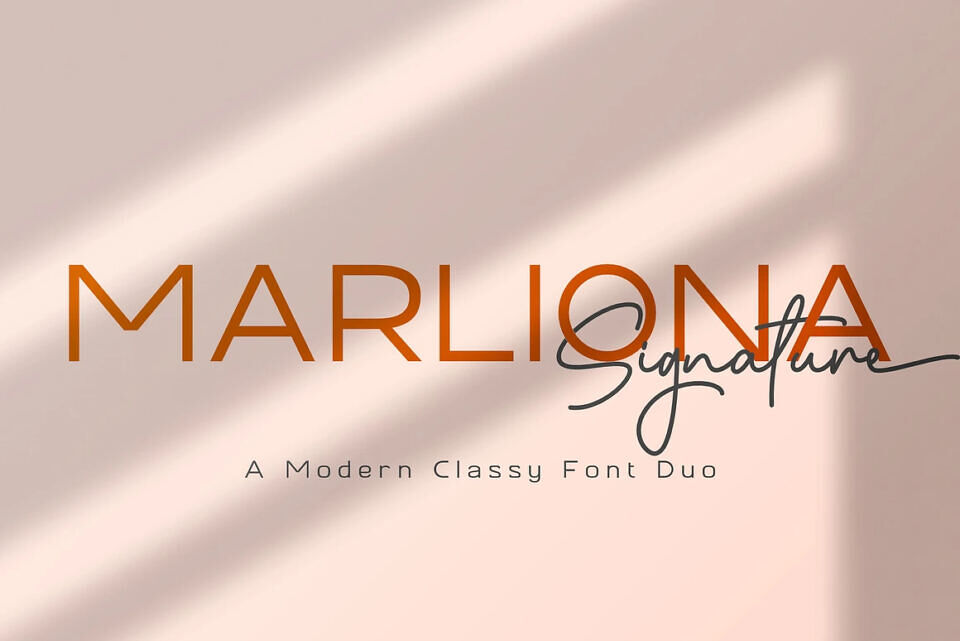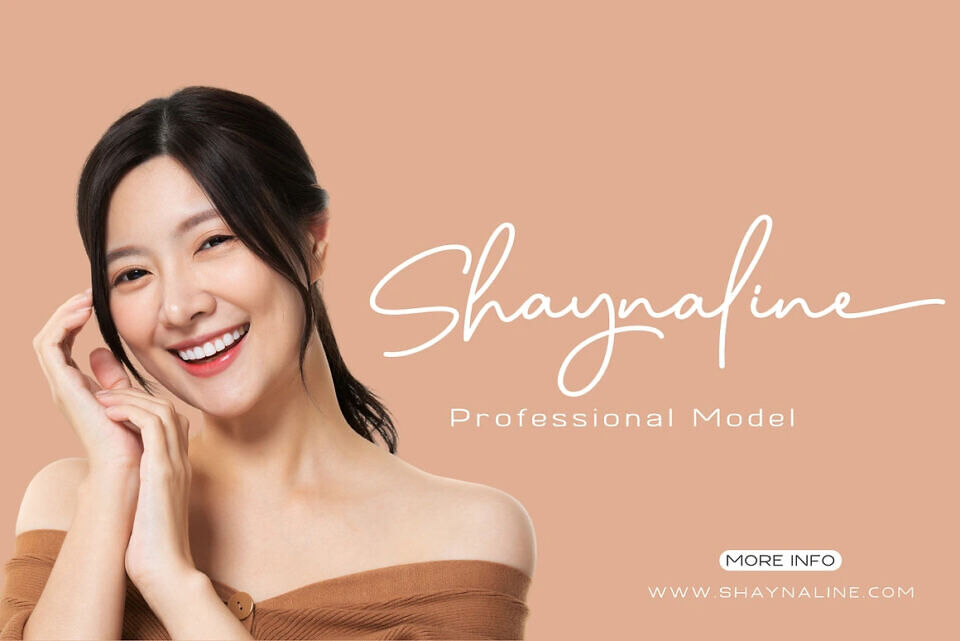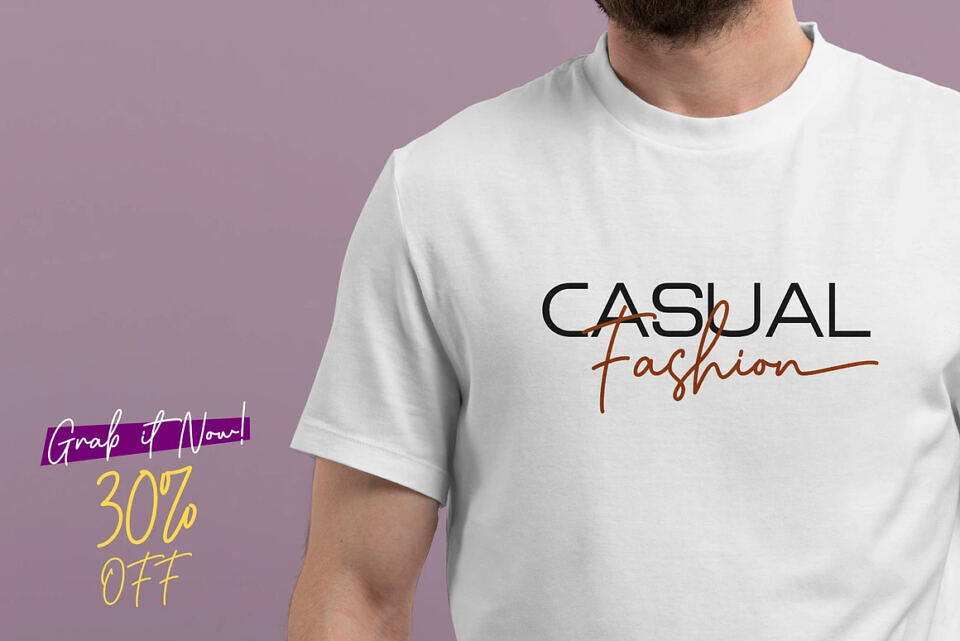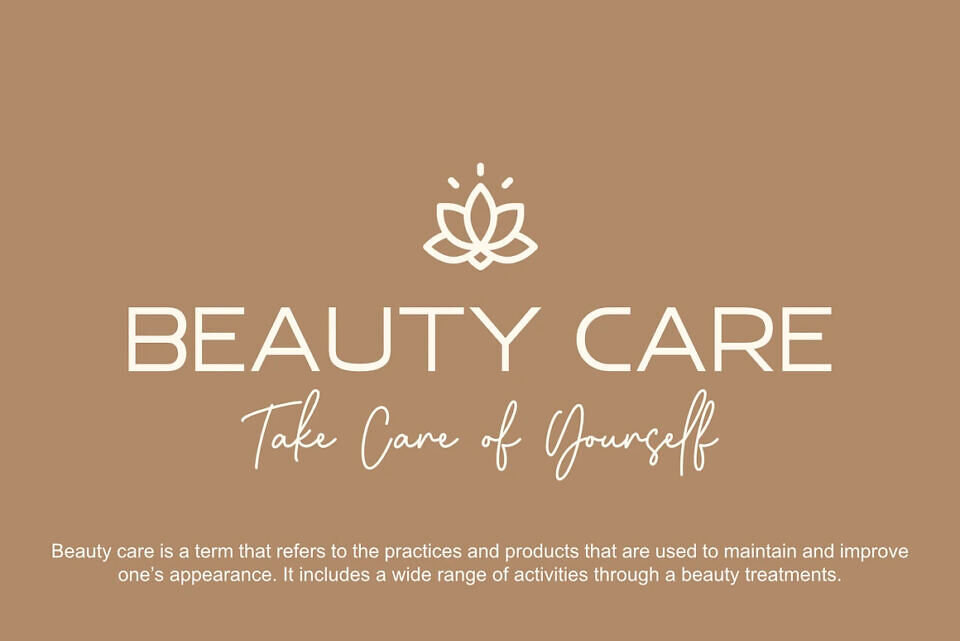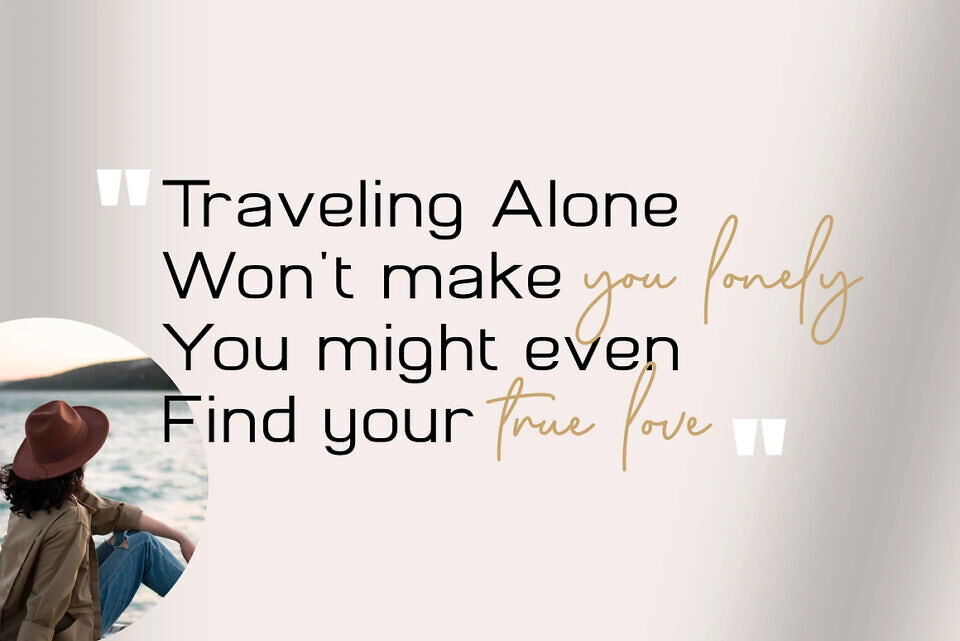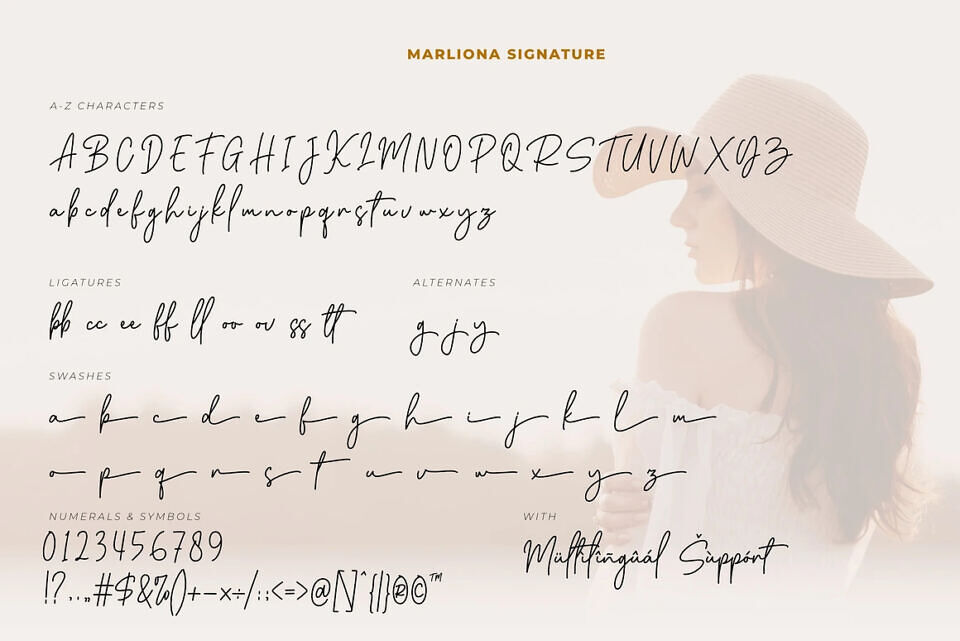
Marliona is a modern and elegant font duo crafted by Madatype Studio. This typeface combines a clean sans-serif font with a sophisticated signature script, making it ideal for a wide range of projects.
Marliona adds a touch of class to casual and sporty designs, from logos and posters to invitations. Its versatile and stylish appeal ensures your design projects achieve a distinctive, professional look.